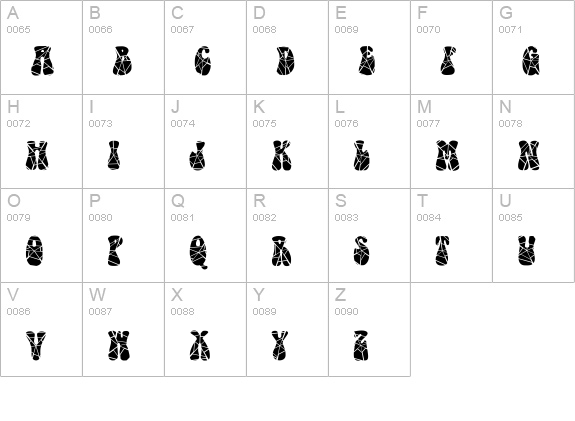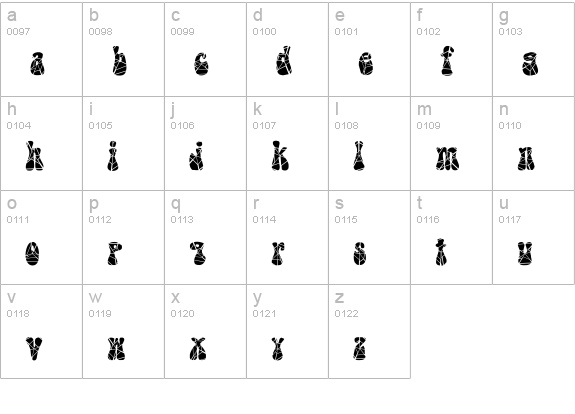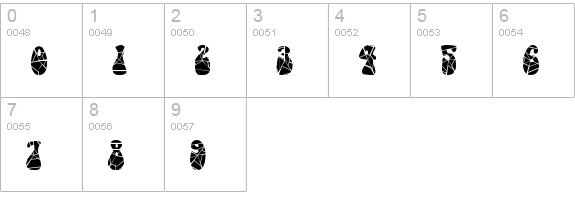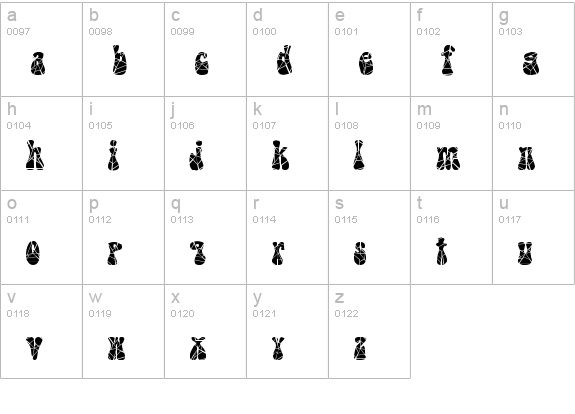
GrooveyCracked Normal Font Details
GrooveyCracked Normal is the standard, neutral variant in the GrooveyCracked typeface family \xE2\x80\x94 well suited to general body text, paragraphs, and standard typographic work.
GrooveyCracked Normal font is a dynamic and eye-catching typeface that exudes a sense of modernity and edginess. Its cracked design adds a unique touch to any project, making it stand out from the crowd. This versatile font is perfect for a variety of design purposes, from posters and logos to social media graphics and branding materials. The best part? GrooveyCracked Normal font is available for free download at FontsMarket.com. With its free availability, you can easily add this striking font to your design arsenal without breaking the bank. Whether you're a seasoned designer looking to add a fresh element to your creations or a beginner exploring the world of typography, GrooveyCracked Normal font is a must-have addition to your font collection. Download it today and let your creativity groove with this captivating typeface.